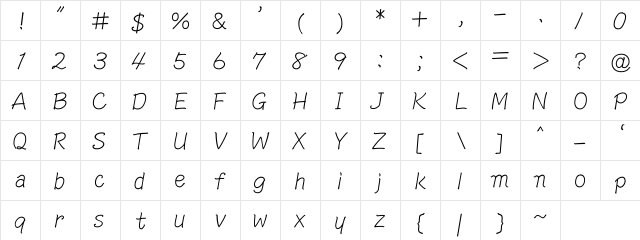
AR Script4 Medium Regular Font Preview
AR Script4 Medium Regular
Design Context for AR Script4 Medium Typeface
AR Script4 Medium flows with the natural rhythm of handwritten lettering, making it ideal for designs that call for warmth and personal expression.
Font Pairing: Combine AR Script4 Medium with a simple geometric sans for maximum contrast — the tension between flowing curves and clean structure is a classic typographic pairing.
Pro Tip: Use AR Script4 Medium for short runs of text — names, titles, or taglines. Extended body copy in script faces tires the eye quickly.